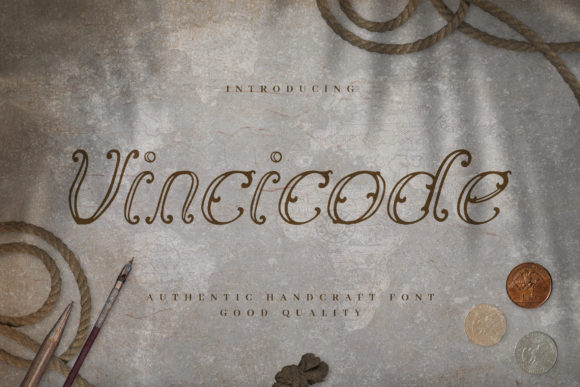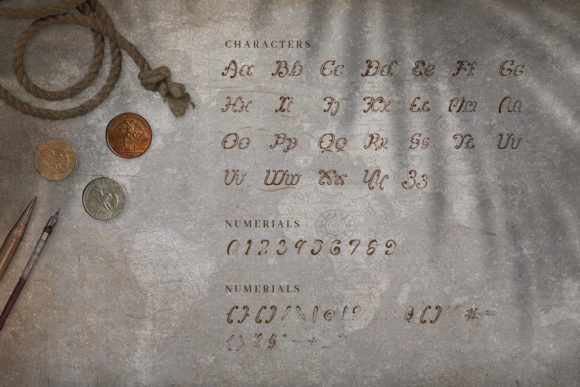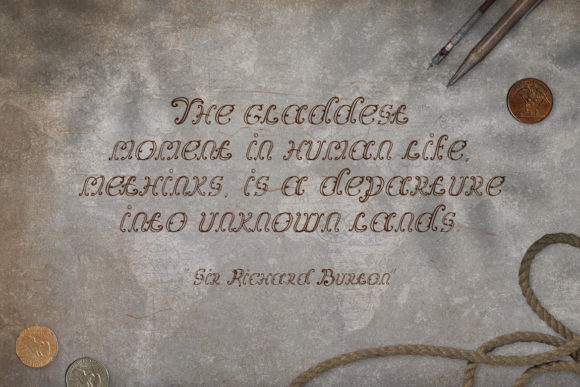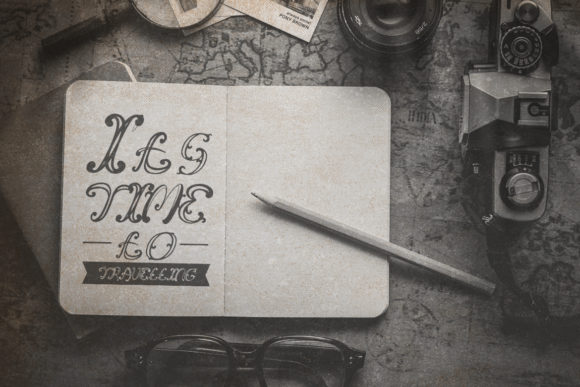
About Vincicode Font
Introducing “Vincicode,” a distinct and unique handwritten font that seamlessly blends classic calligraphic influences with a contemporary and fresh touch. Prepare to be captivated by its charm and elegance as it adds a touch of sophistication to your designs. With “Vincicode,” you’ll fall in love and bring your projects to the highest levels of creativity and refinement.
With “Vincicode,” you have a font that carries a timeless appeal while feeling modern and fresh. Its handwritten style exudes authenticity and grace, creating a delightful visual experience. Whether you’re working on wedding invitations, branding materials, or creative projects, this font brings a sense of class that leaves a lasting impression.
The distinctiveness of “Vincicode” sets it apart from conventional fonts. Its unique blend of classic calligraphic elements and contemporary flair makes it a versatile choice for a wide variety of design projects.
Embrace the sophistication of “Vincicode” as it elevates your designs to new heights. Its elegant and refined appearance adds a touch of luxury, making your creations stand out with style.
Unleash your creativity and watch how “Vincicode” enhances your designs with its unique and captivating touch. Whether you’re crafting refined logos, designing elegant branding materials, or creating exquisite stationery, this font will bring a sense of beauty and authenticity that captivates your audience.
So, immerse yourself in the allure of “Vincicode” and let it become your creative ally. Allow its distinct and unique style to inspire your designs, turning them into exquisite works of art. Whether you’re a seasoned designer or a passionate enthusiast, “Vincicode” empowers you to create visuals that stand out and make a statement. Let “Vincicode” be the key to unlocking the sophistication and contemporary elegance in your designs, and watch as it takes your projects to new levels of creativity and refinement!